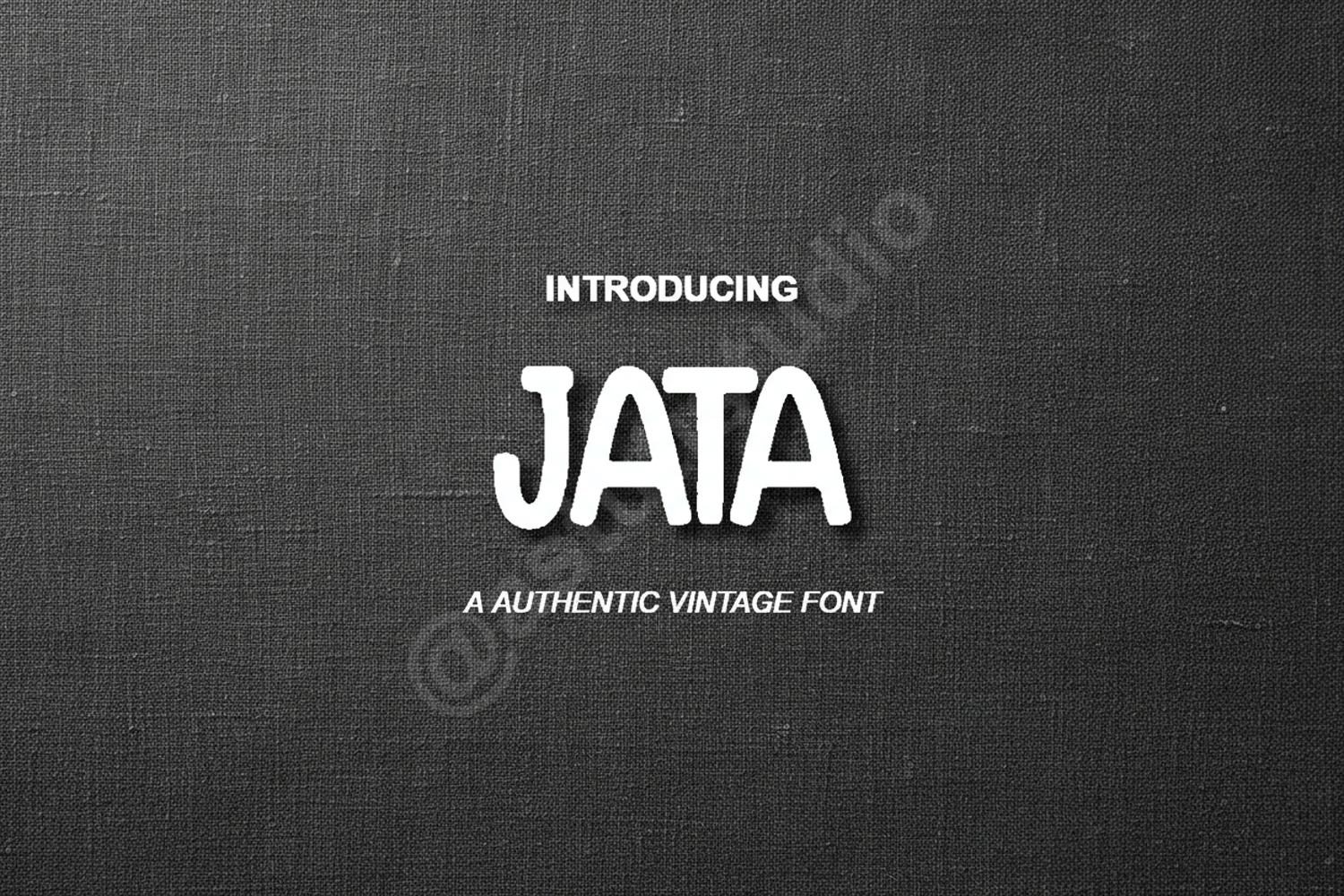
Jata - Sophisticated Modern Serif Typeface
Jata
Elevate your creative projects with Jata, a premium serif typeface that seamlessly blends classic sophistication with modern flair. Meticulously crafted for designers who demand excellence, Jata offers a perfect balance of sharp serifs and graceful curves, making it an essential addition to your professional typography toolkit.
- Complete set of uppercase and lowercase characters
- Comprehensive numbers and punctuation
- Extensive multilingual support
- Branding and Visual Identity: Create memorable logos and brand marks that exude luxury and professionalism.
- Editorial Design: Perfect for magazine headings, book covers, and high-end layout designs.
- Wedding Stationery: Add a touch of timeless class to invitations, save-the-dates, and ceremony programs.
- Social Media: Design striking quotes and promotional graphics that capture attention in any feed.
- Packaging: Ideal for boutique product labels, fashion tags, and cosmetic packaging.